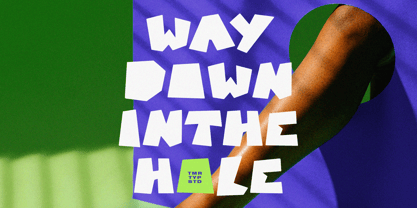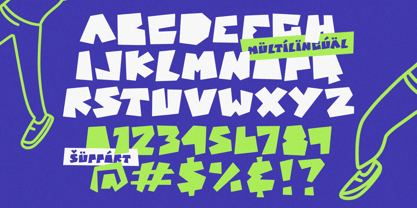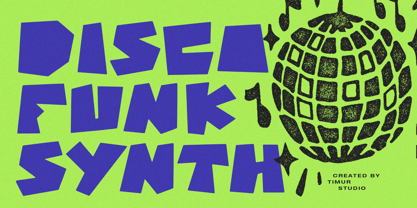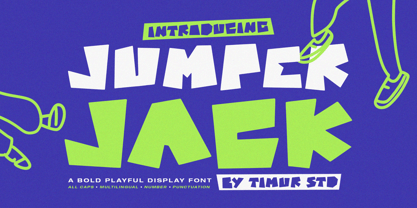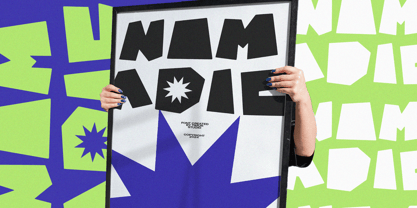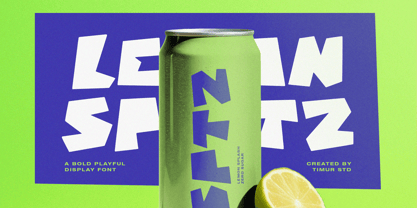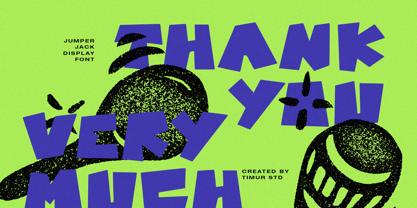
Jumper Jack
von Timurtype
Die Schriftfamilie Jumper Jack wurde von Wara Sigit Tri Pamungkas entworfen und von Timurtype veröffentlicht. Jumper Jack enthält 1 Stile.
Introduced by Timurtype Studio!
Jumper Jack is a Bold Playful Display Font
This font is a bold and playful display font that exudes energy and charm. With its quirky, dynamic letterforms and lively character, it’s perfect for eye-catching designs, including posters, logos, packaging, and children’s projects. Jumper Jack adds a fun and energetic vibe to any creative work.
Jumper Jack also supports multilingualism
Designer: Wara Sigit Tri Pamungkas